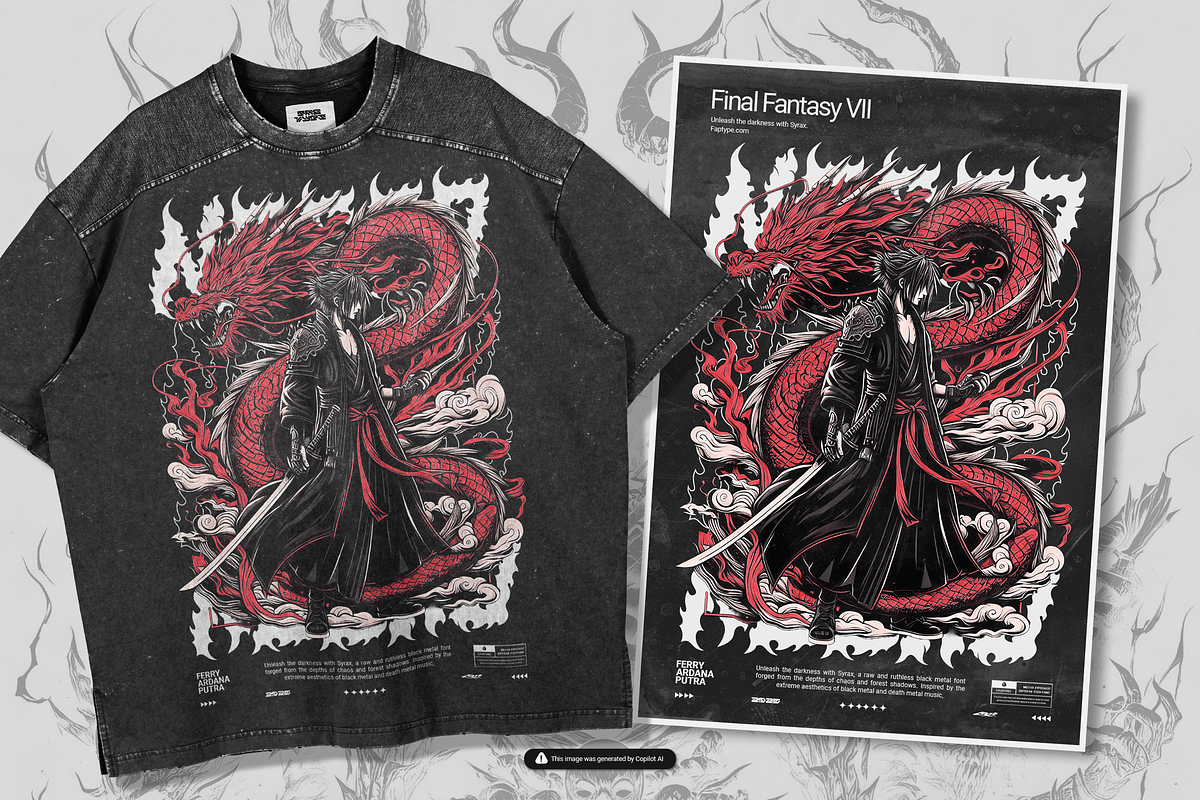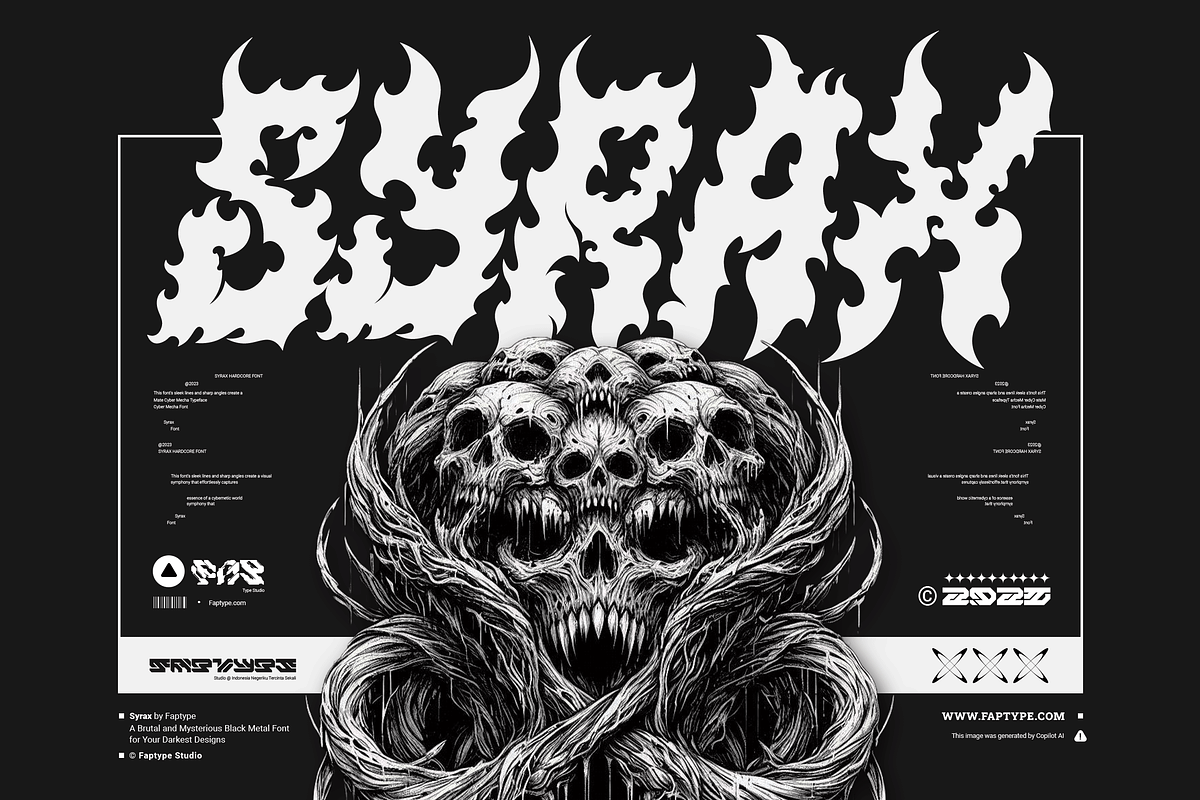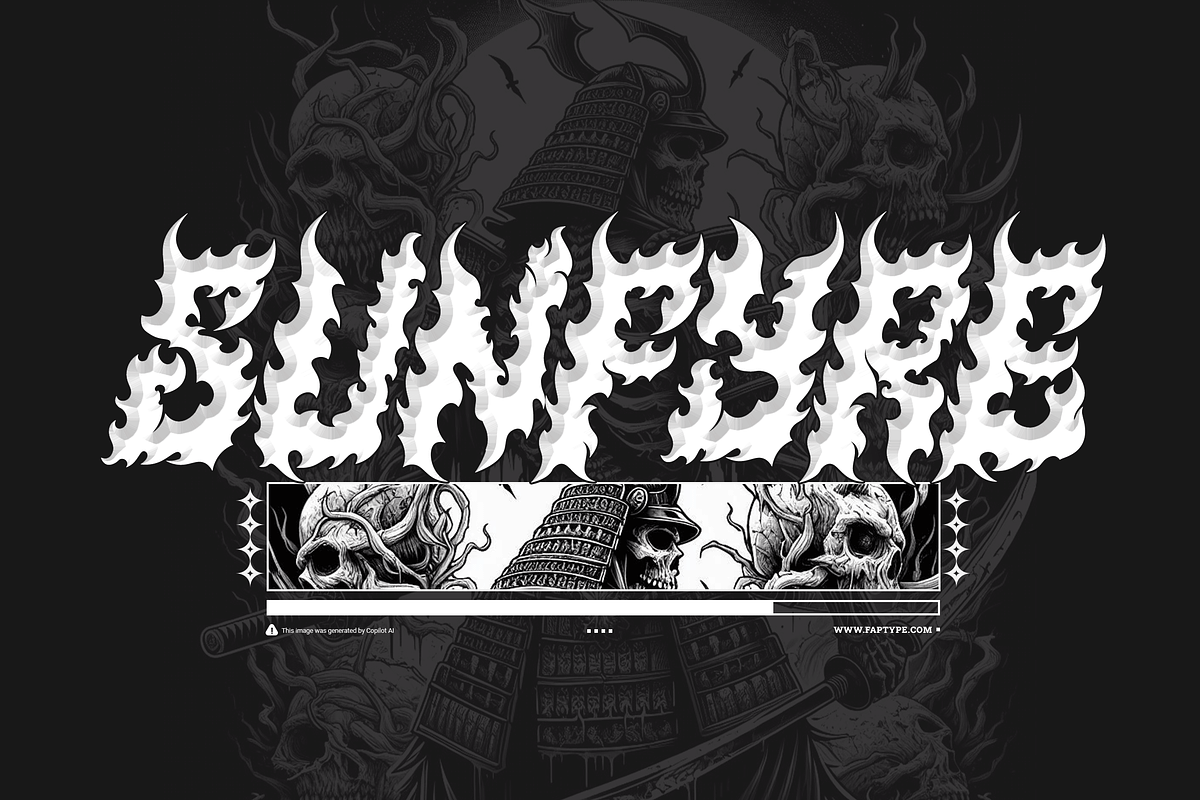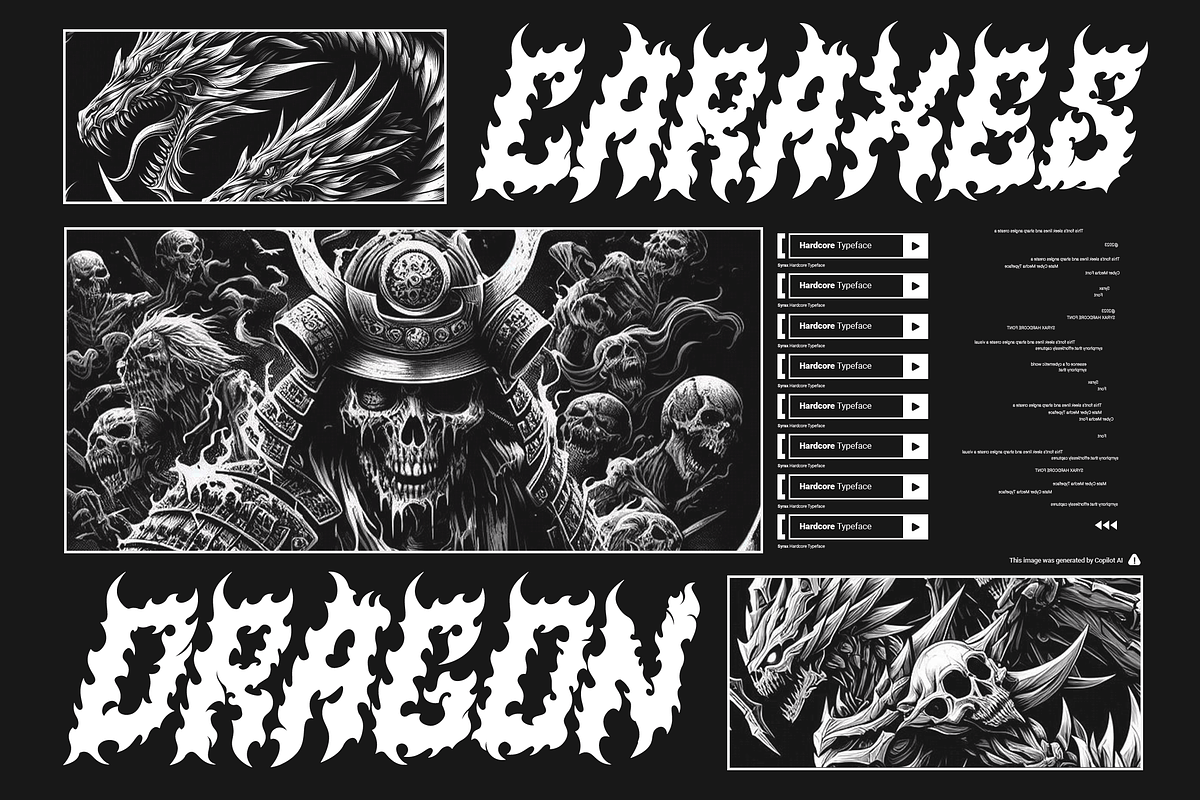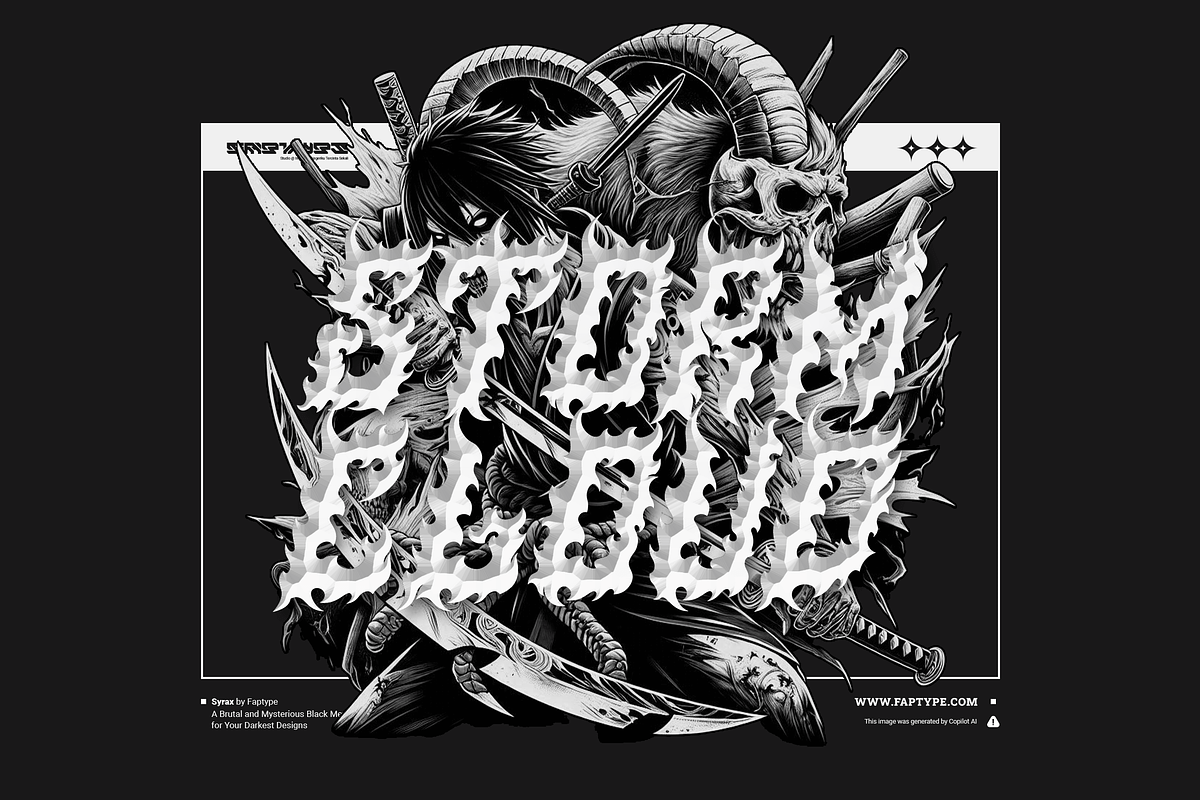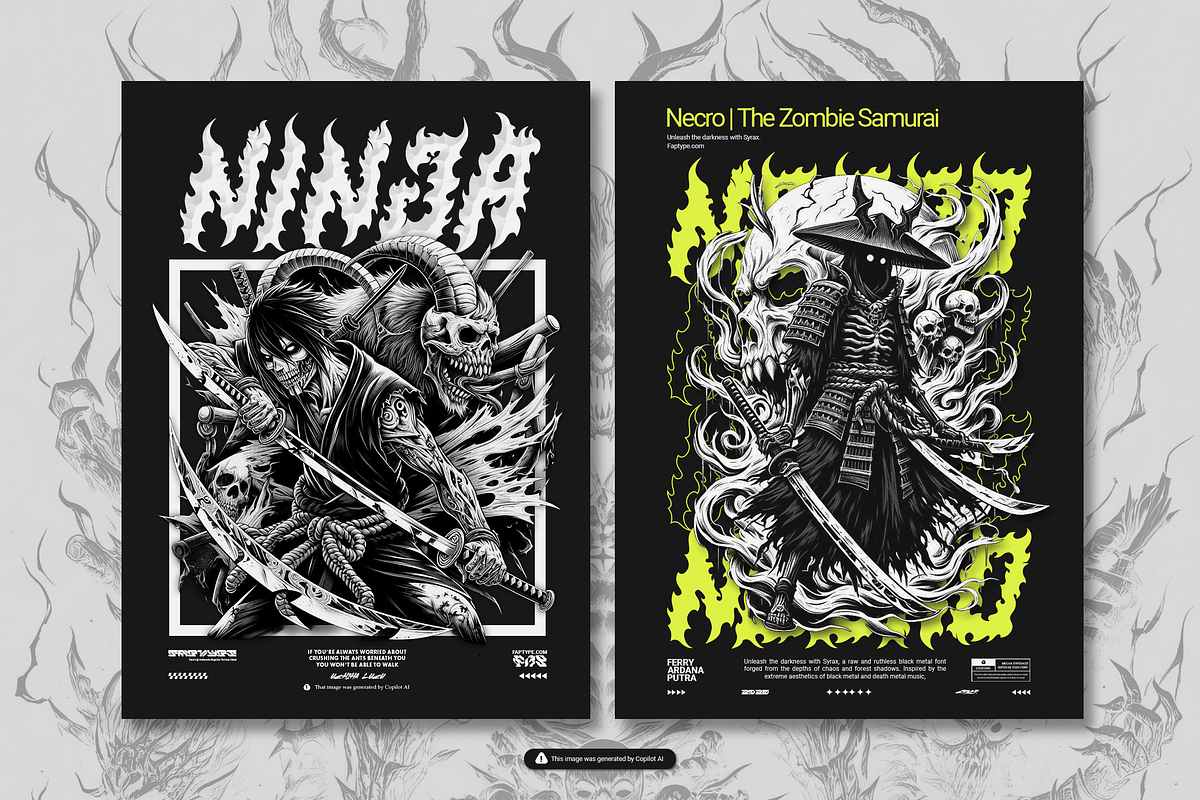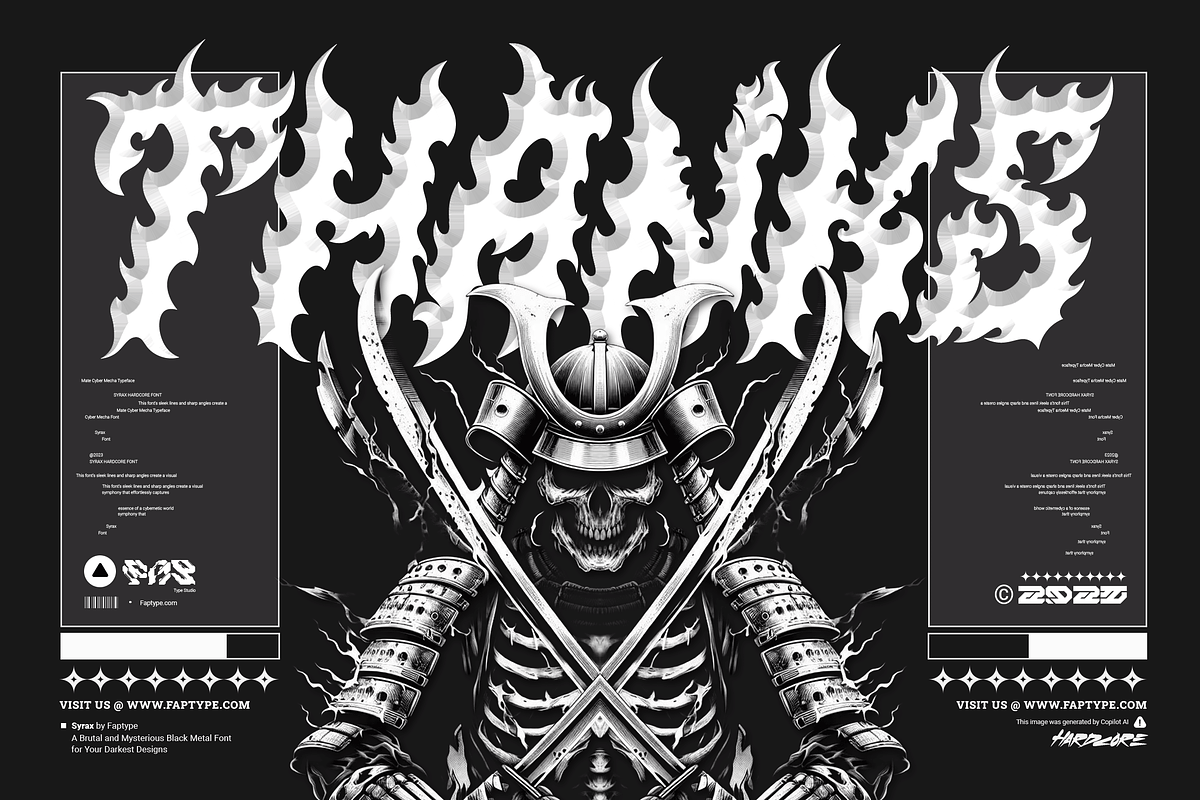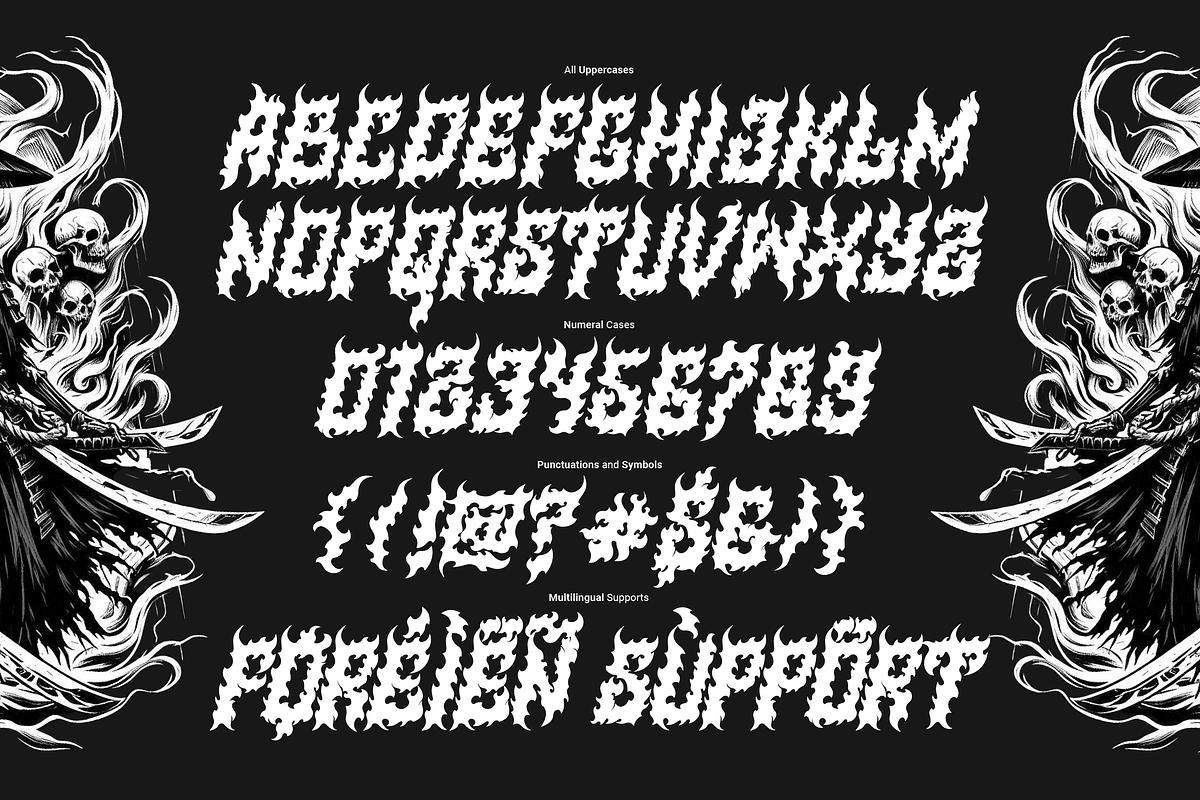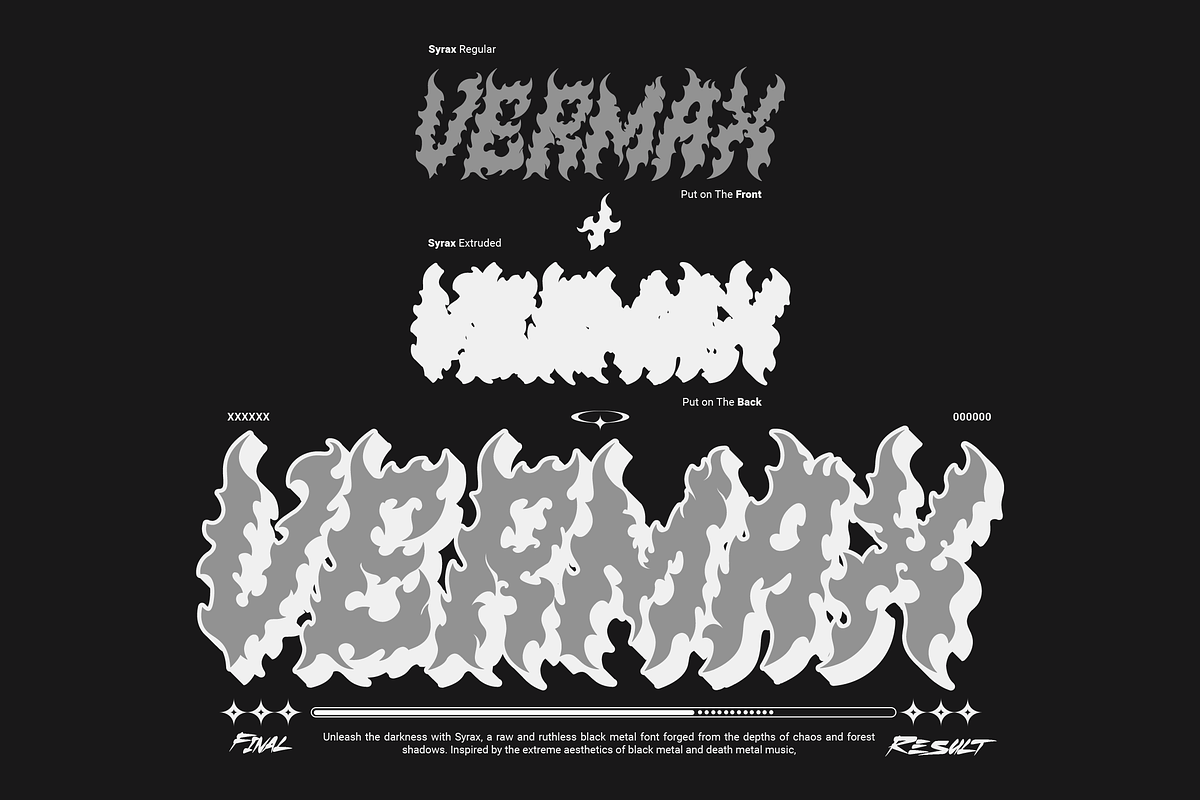
Syrax – Brutal Black Metal Typeface
Syrax – Brutal Black Metal Typeface for Extreme Design
Syrax is a savage and unrelenting death/black metal font forged in darkness and chaos. Designed with sharp, chaotic strokes and a blood-soaked aesthetic, Syrax delivers a raw, aggressive visual impact that embodies the true spirit of underground extreme music. This font isn’t just a tool—it’s a weapon for visual destruction.
Built for bands, labels, and creators who demand intensity, Syrax is the perfect match for artwork that screams defiance, darkness, and power. Whether you're crafting album covers, vinyl sleeves, brutal gig posters, or hardcore t-shirt designs, Syrax ensures your message is loud, vicious, and unforgettable.
Death & black metal CD and vinyl album covers
Savage gig posters and underground festival flyers
Extreme metal band merchandise (t-shirts, hoodies, patches)
Horror, occult, and dark-themed branding
Hardcore, punk, and extreme music visual identities
With its sinister energy and uncompromising style, Syrax is more than a font—it’s a declaration of brutality. Ideal for those who reject the mainstream and live by the riffs, the roar, and the rage.
🔥 Make your visuals bleed with Syrax — the ultimate black/death metal font. Unholy. Unforgiving. Unmatched.
Syrax features:
- A full set of Uppercase
- Numbers and Punctuation
- Multilingual Language Support
- OpenType Features
- +234 Total Glyphs